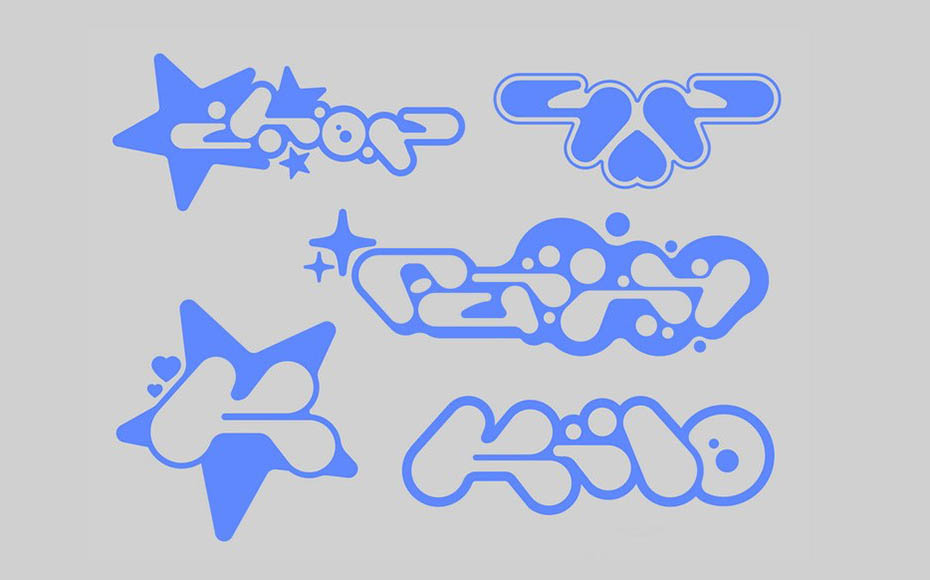
Kilo Font is a fun display font that contains elegant bold textures. Hvnter name font foundry has created his elegant font for the first time in 2021.
It has an amazing cool appearance that can surely use for adventures or cartoon designs. Each and every letter has a fluffy appearance that is created with bold outlines.
So, you can definitely use it for unique designs. Because such kind of cool typefaces is rarely found in the market. And becomes the best choice for stylish and modern designs.
It comprises only one regular style along with Opentype features. Moreover, It has just uppercases and lower cases. So, you can just create specific designs with its help.
All its characters have awesome cool appearance that contains fluffy texture. This texture surely gives a unique look that makes it best choice for unique designs.
With this awesome font, you can create cartoon posters, unique emblems, game graphics, product designs, special event cards, secret projects, and many other things as well.